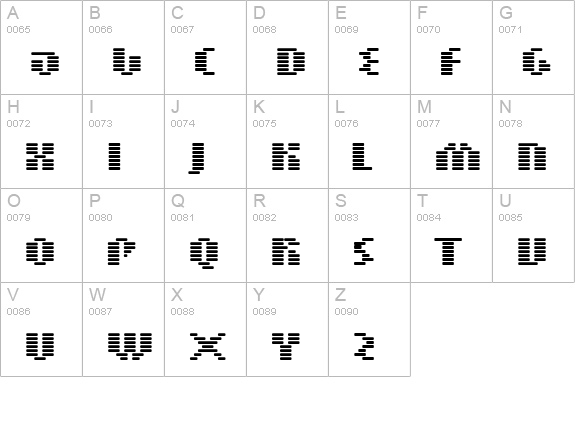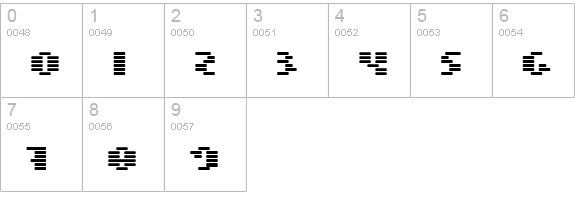
BN Moog Boy Font Details
Introducing BN Moog Boy - a whimsical and playful font that exudes energy and character. The quirky design of this font is sure to liven up any project, whether it be for branding, packaging, or social media graphics. With its unique style and charming appeal, BN Moog Boy is perfect for adding a touch of fun and creativity to your designs. The best part? BN Moog Boy is completely free to download at FontsMarket.com. That's right, you can easily access this delightful font at no cost and start incorporating its cheerful vibe into your projects right away. Don't miss out on the opportunity to enhance your designs with the charm and personality of BN Moog Boy - download it for free today at FontsMarket.com!